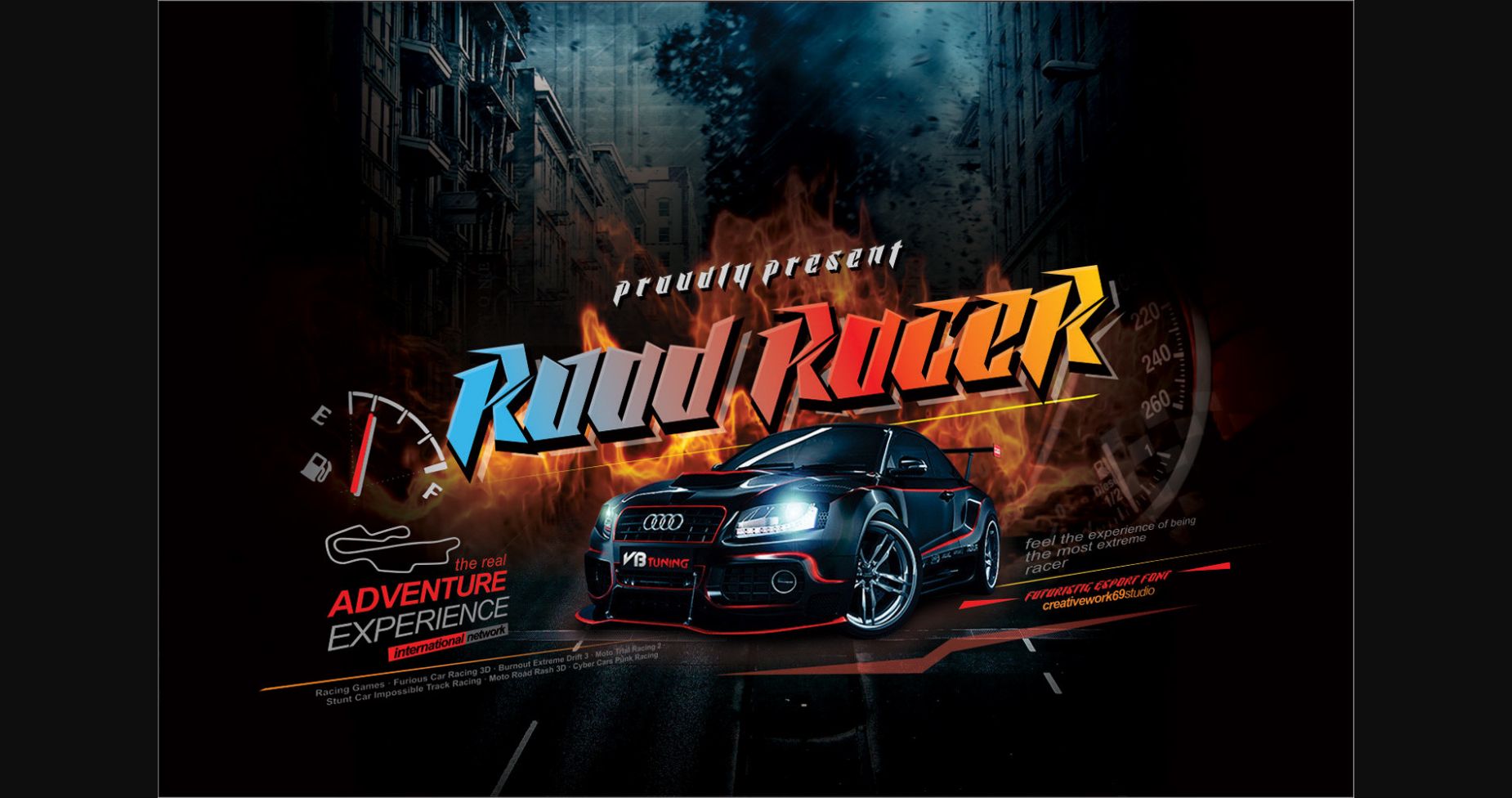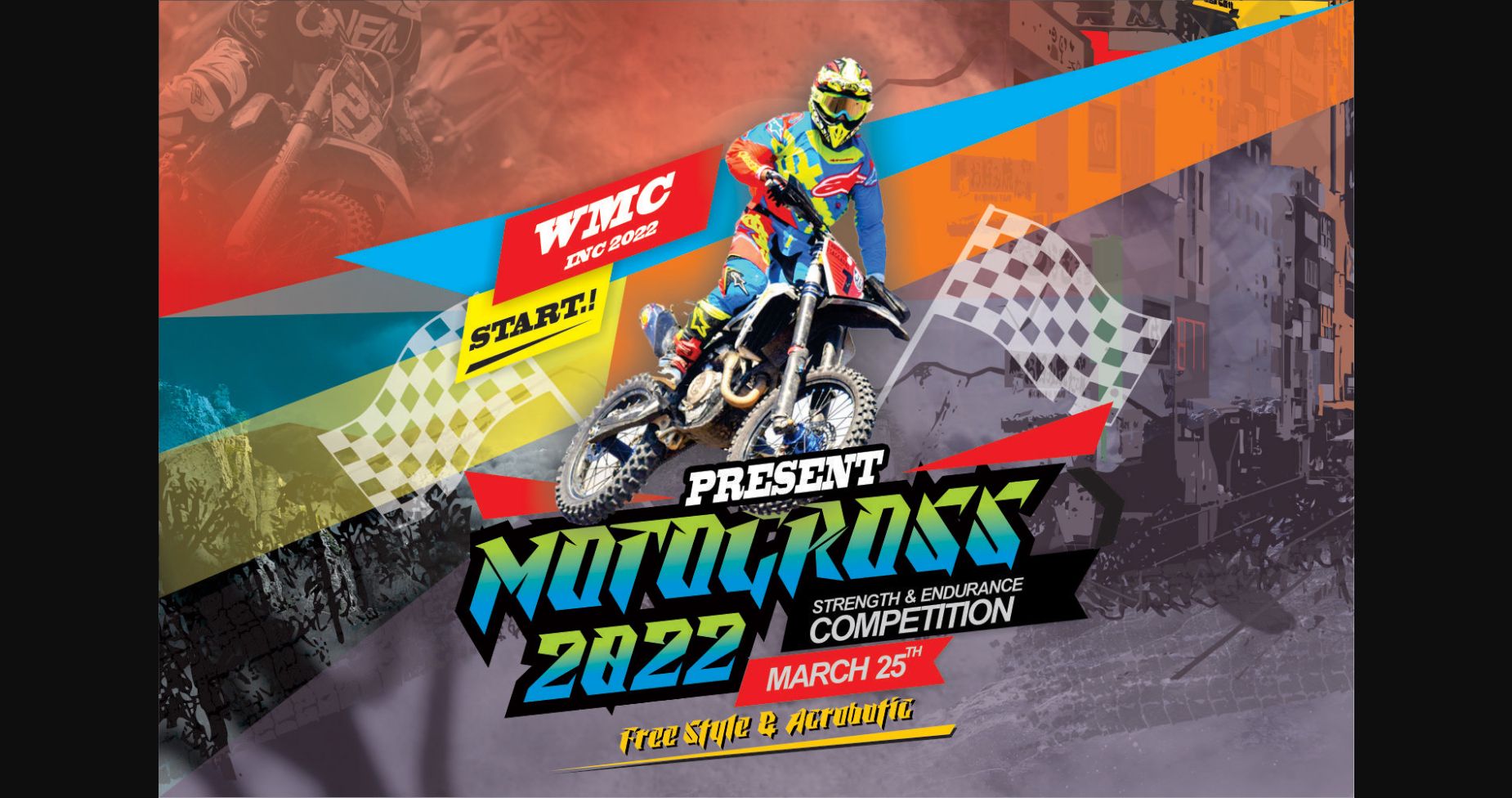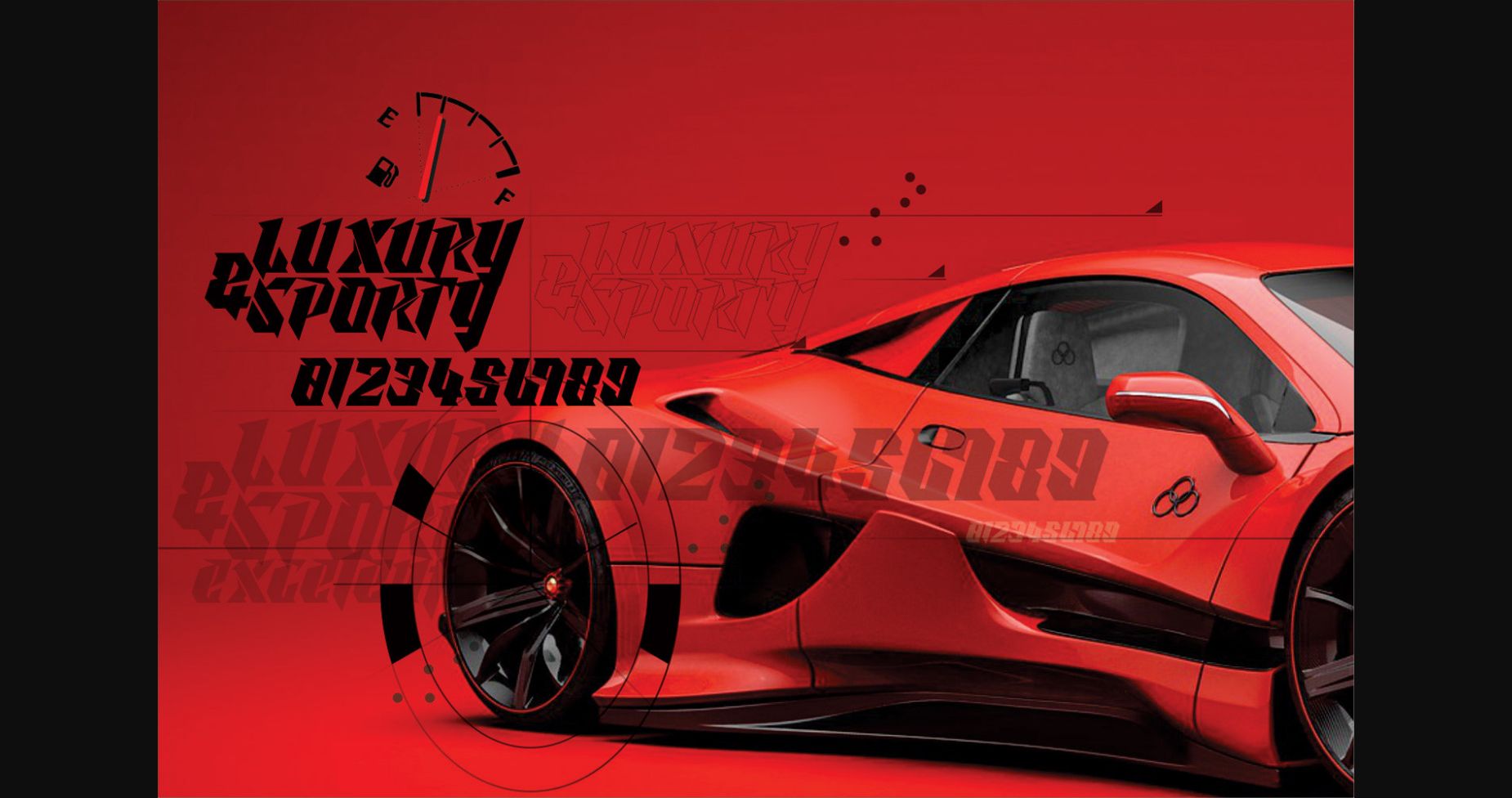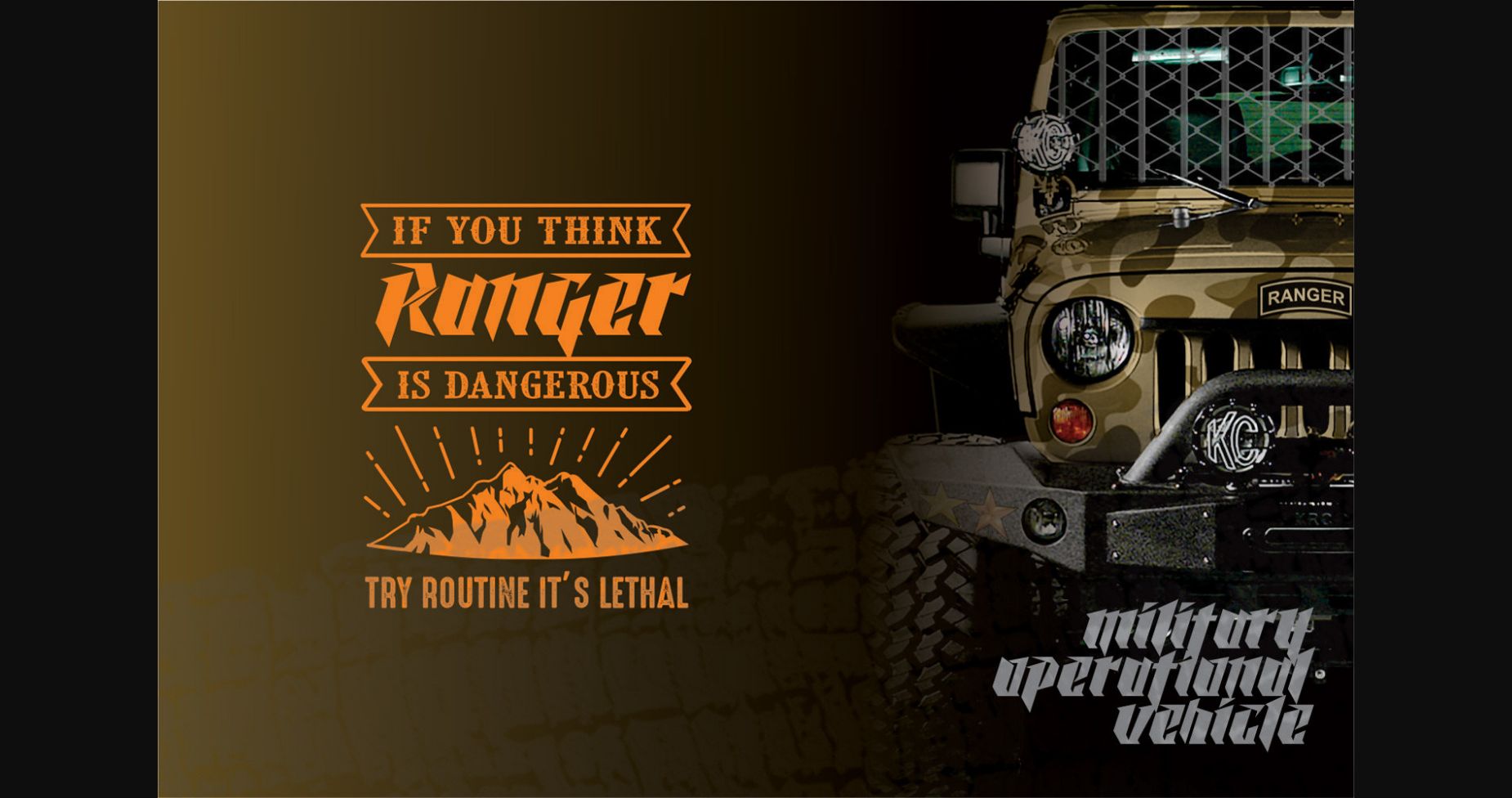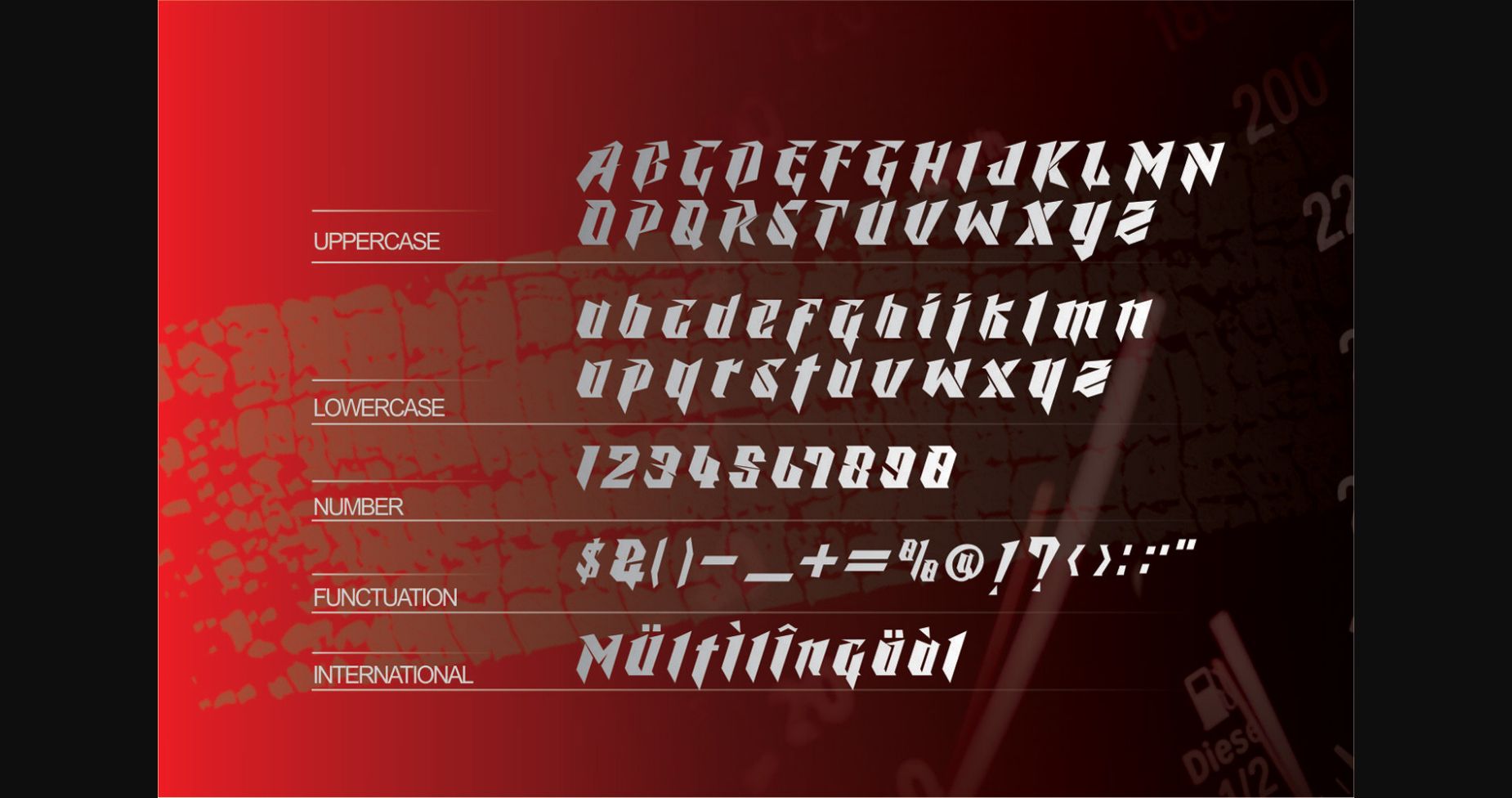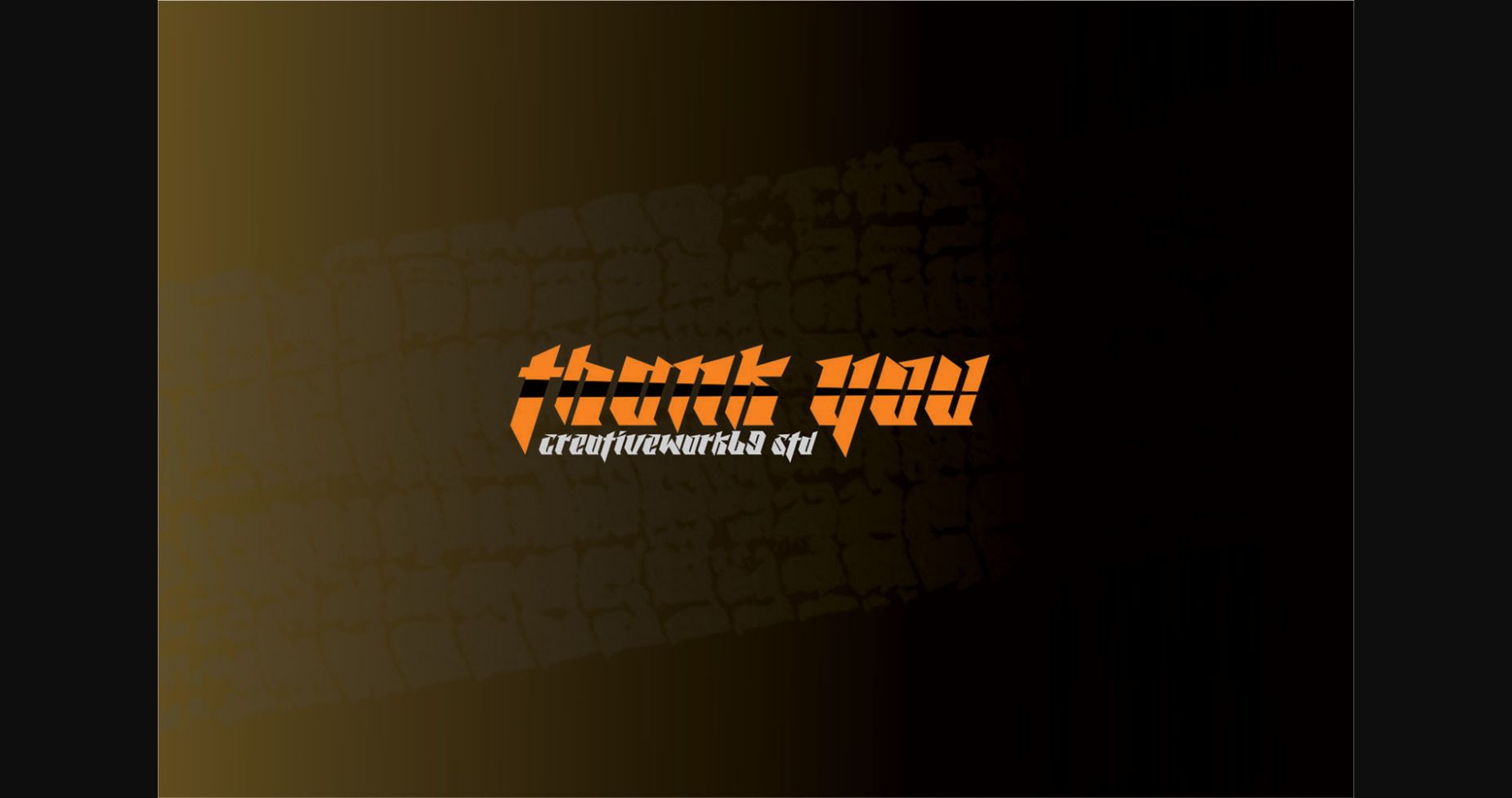
About Road Racer Font
Road Racer is an esport style font that has a sporty character, very suitable for automotive design projects, sports and all products with a dynamic character.